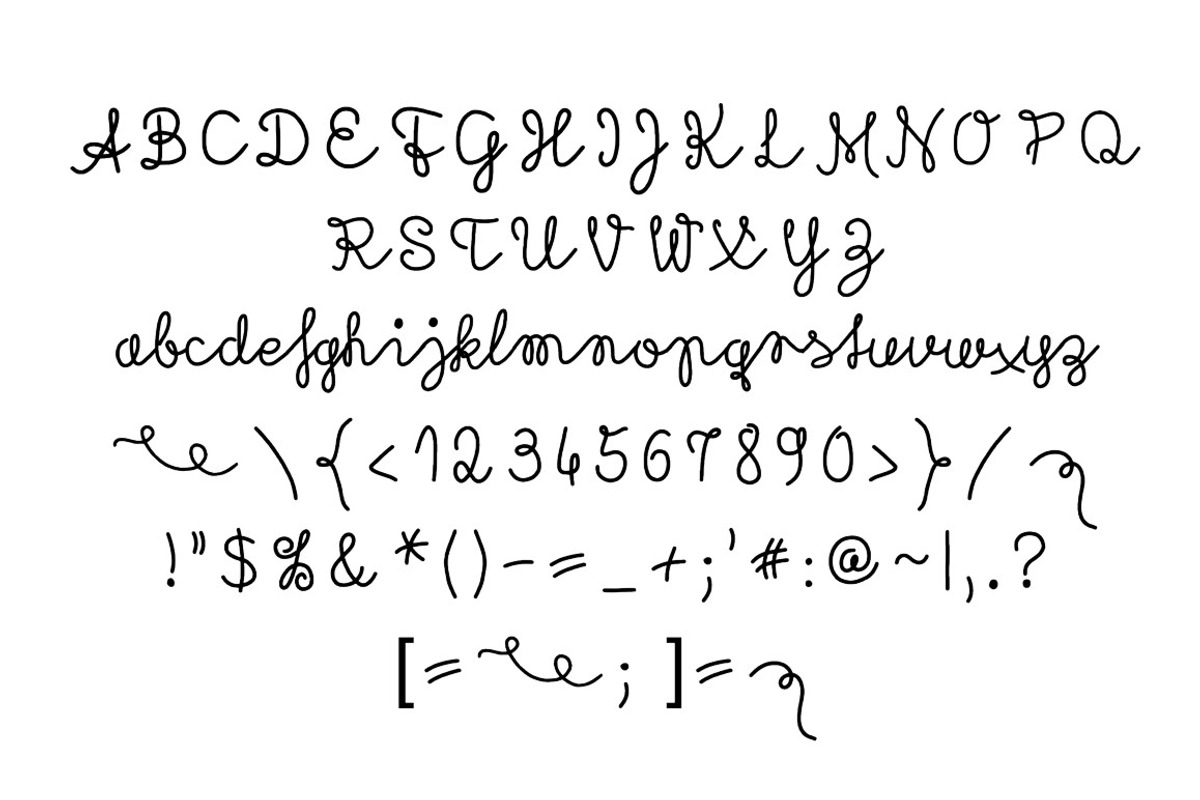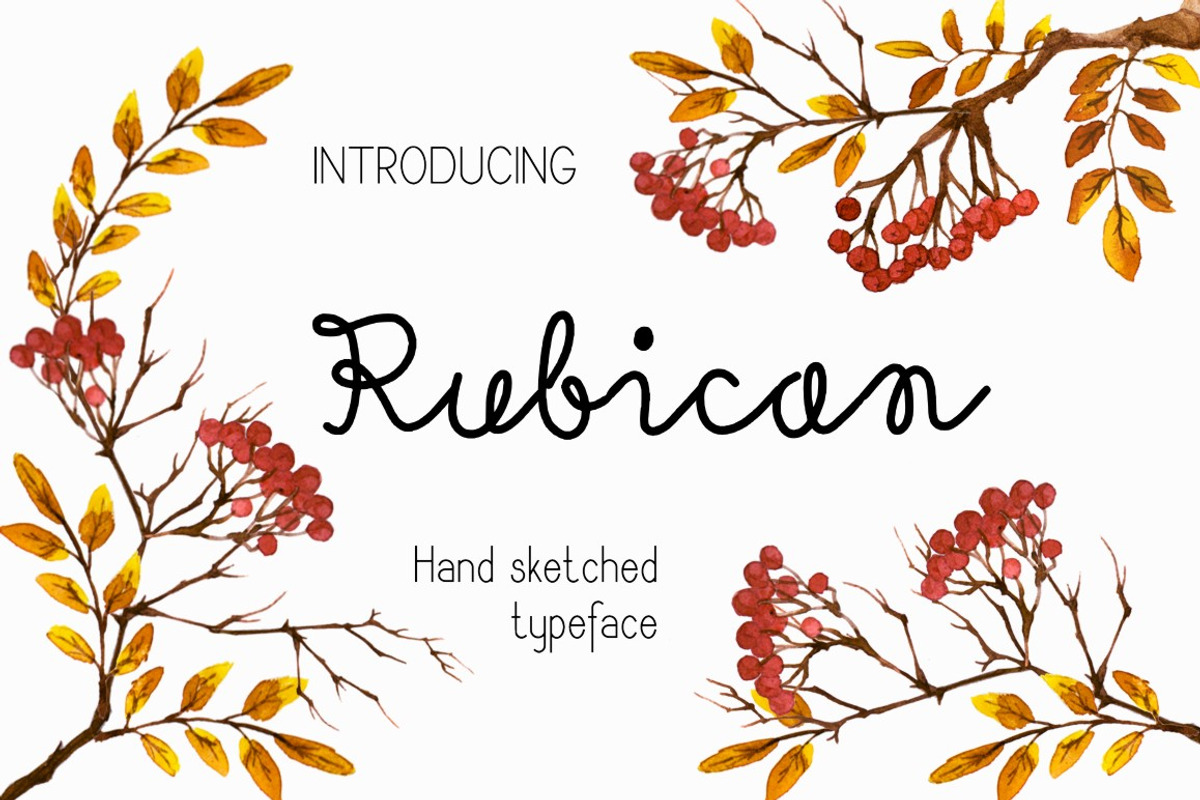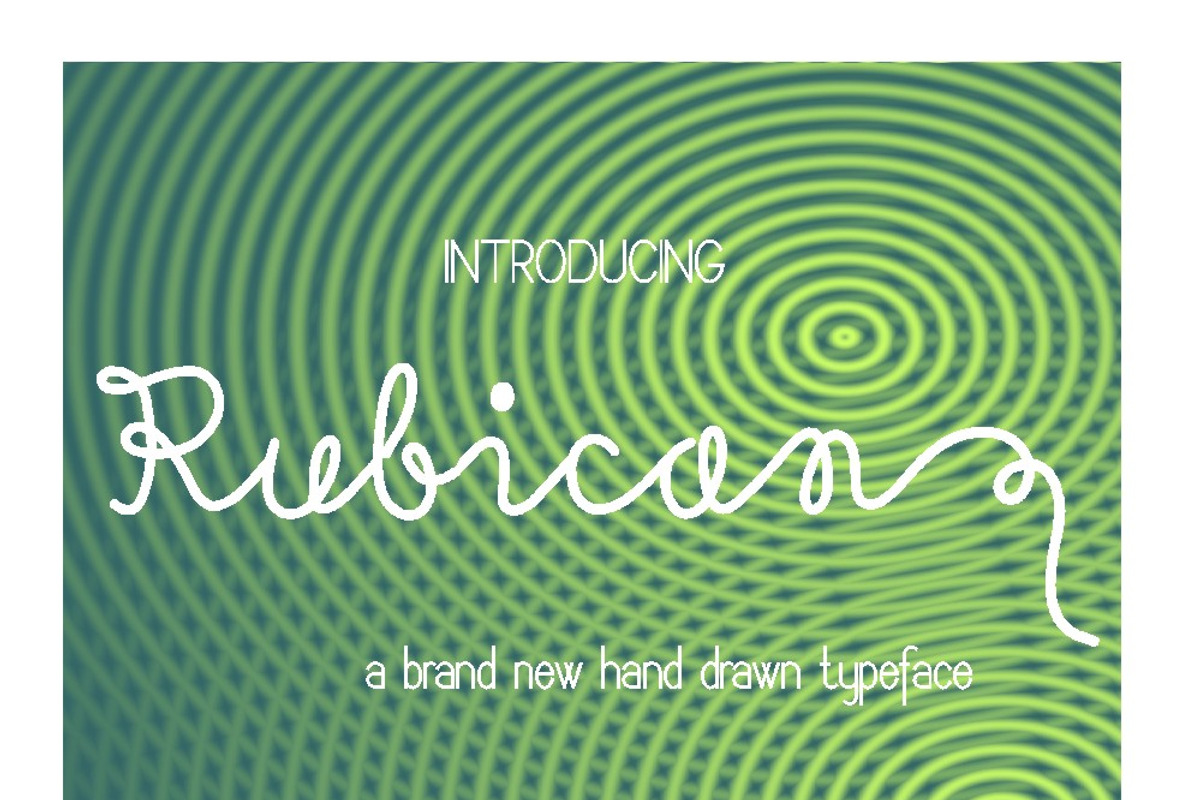
Rubican Font
Rubican Font by Digital Typeface Studio is a font selected for branding, posters, packaging, typography.
Rubican Font by Digital Typeface Studio fits naturally into Branding, posters, packaging, typography.